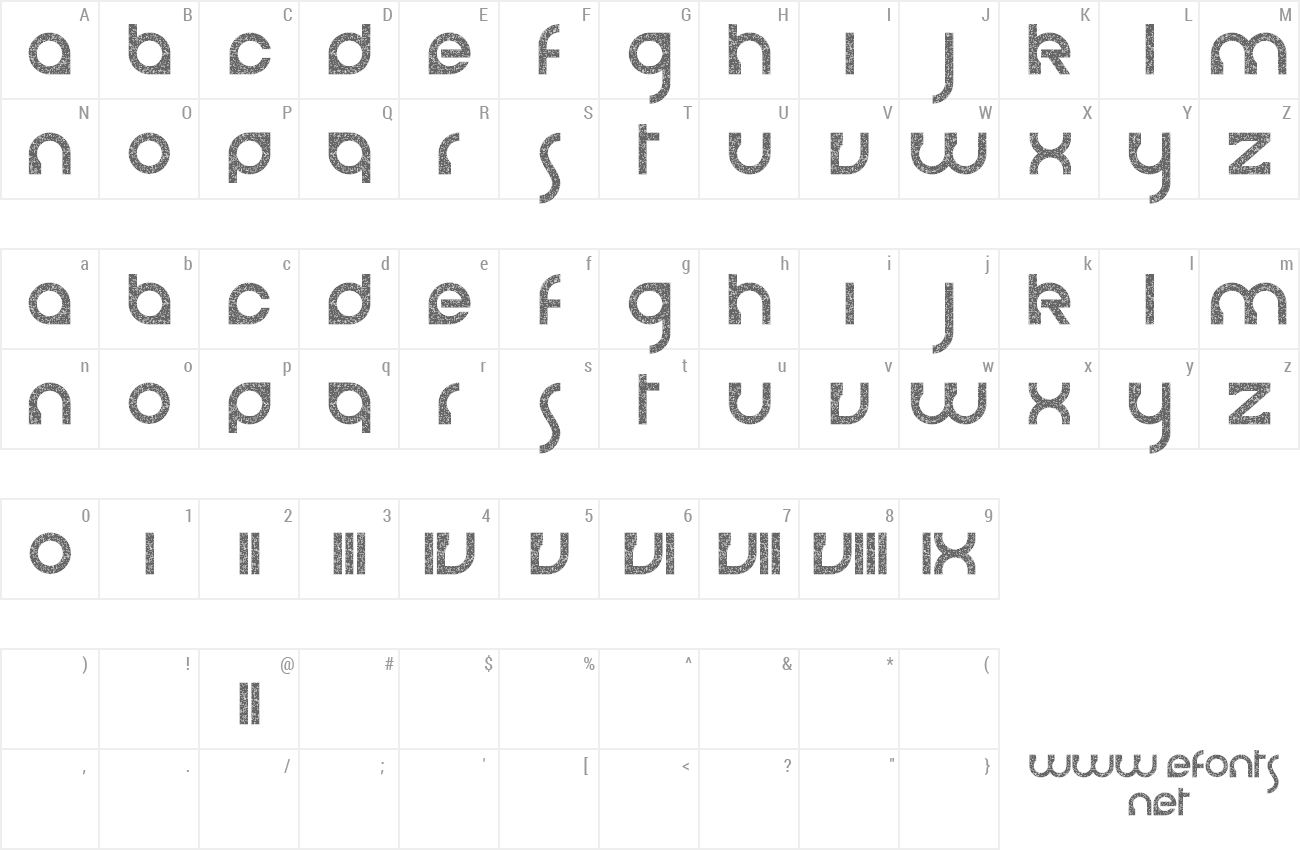
Check out my new Font Blog to stay up to see when I release new fonts! http://murafonts.blogspot.com/ ----------------------- This is a lower cased letter set that I've been playing with for awhile. It looks kinda Sci-Fi Techish and Fun! This includes a Regular, Filled version of the font as well as a Grunge version. This is free to do with whatever you wish, personal or commercial. Just don't claim ownership, sell it, redistribute it, or be a jerk with it. It might be cool if you use the font to either credit MuraKnockout Media or Michael Muranaka, or show me how you used it! Enjoy! |